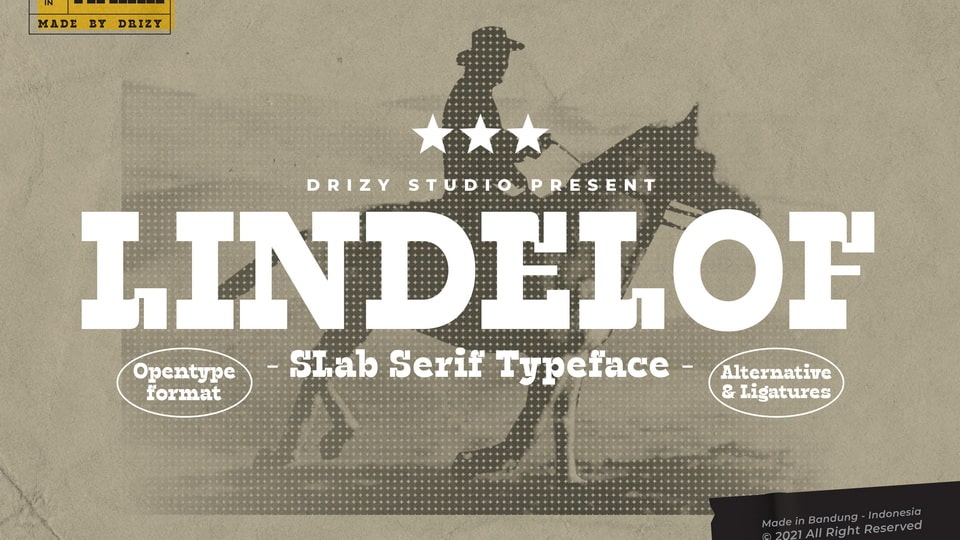
Download Lindelof font, a slab serif typeface specially designed for vintage cowboy designed look. Lindelof font offers all the basic styles you will need for a successful project.
Designer: Drizy Studio